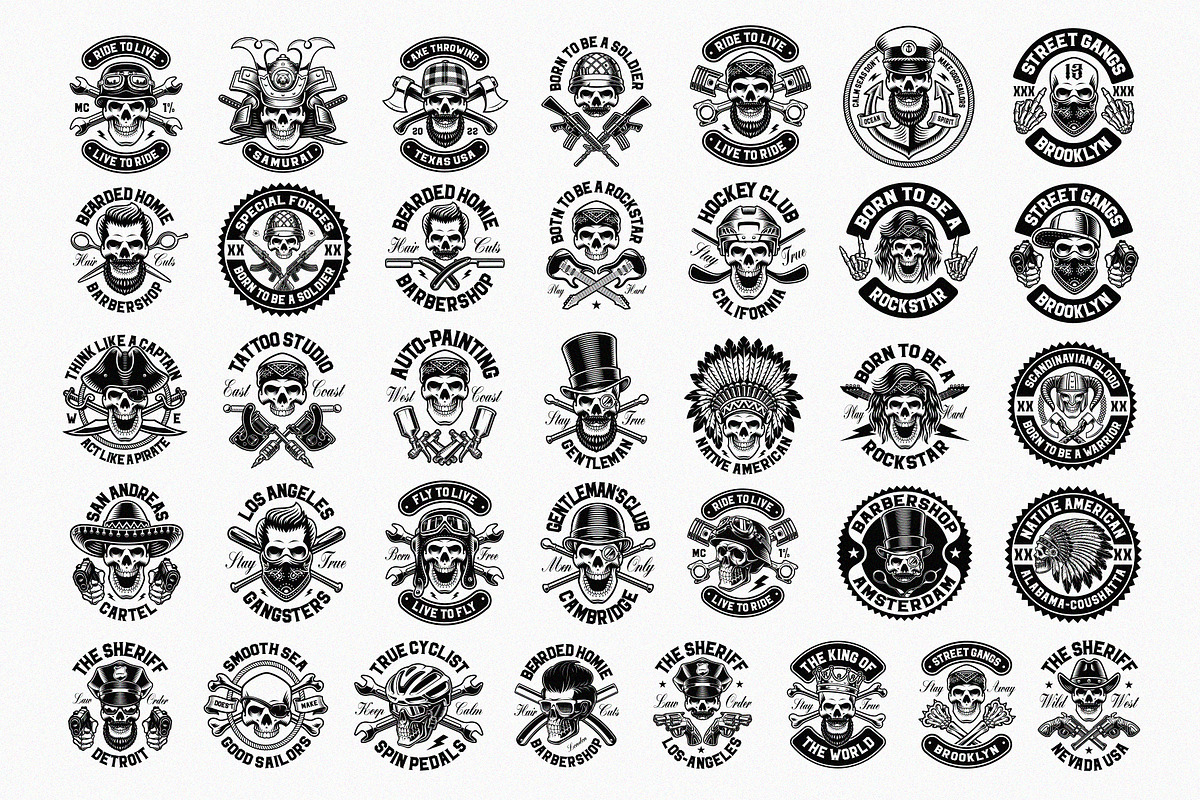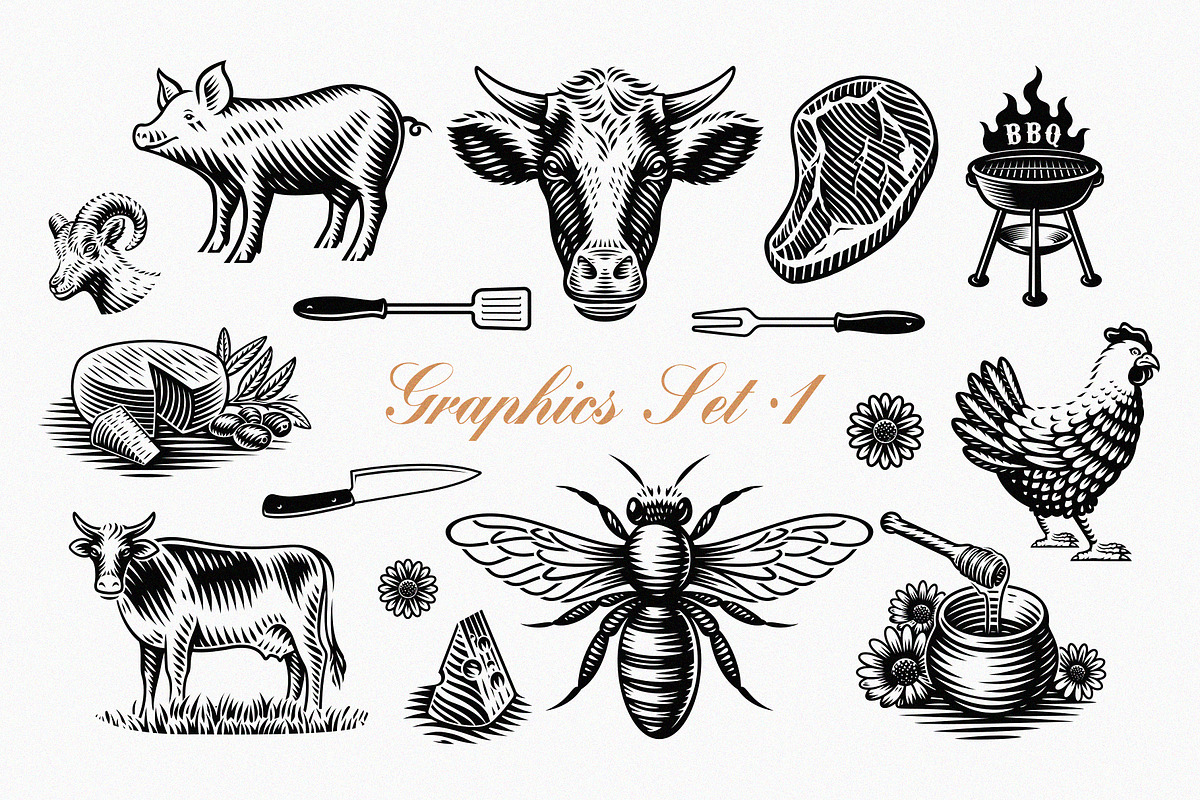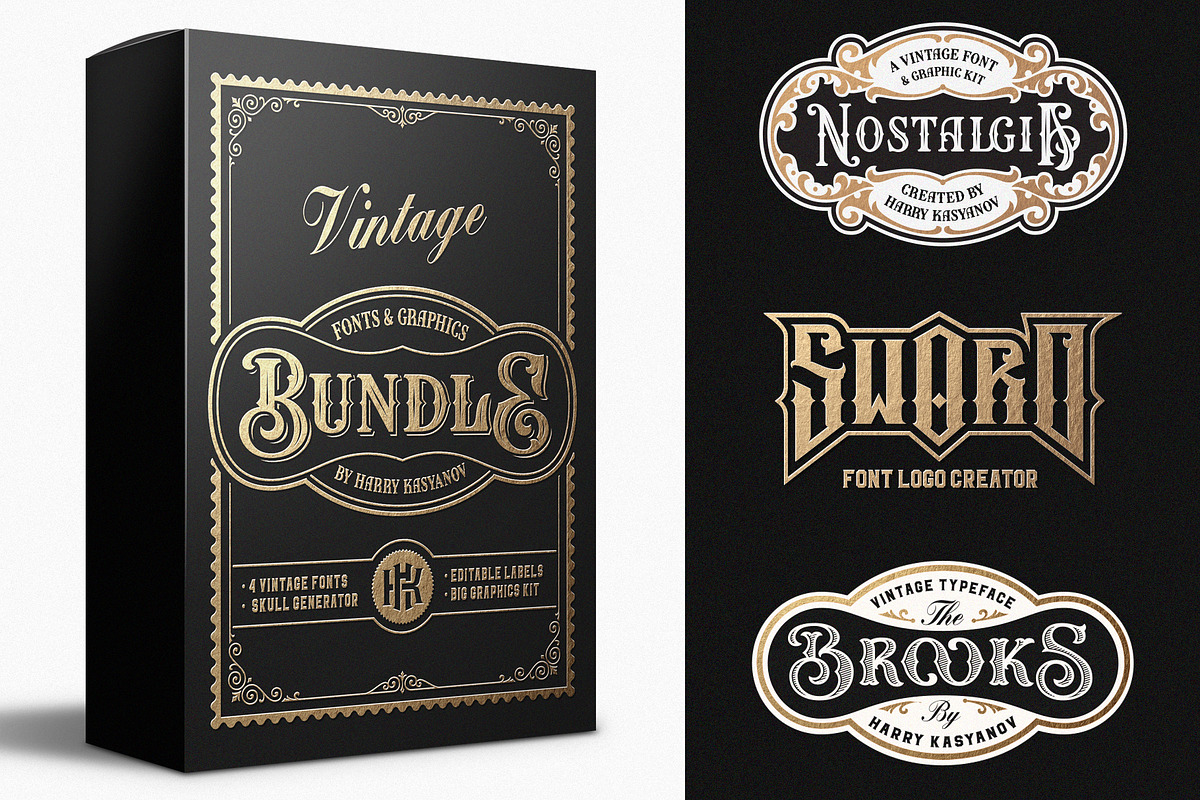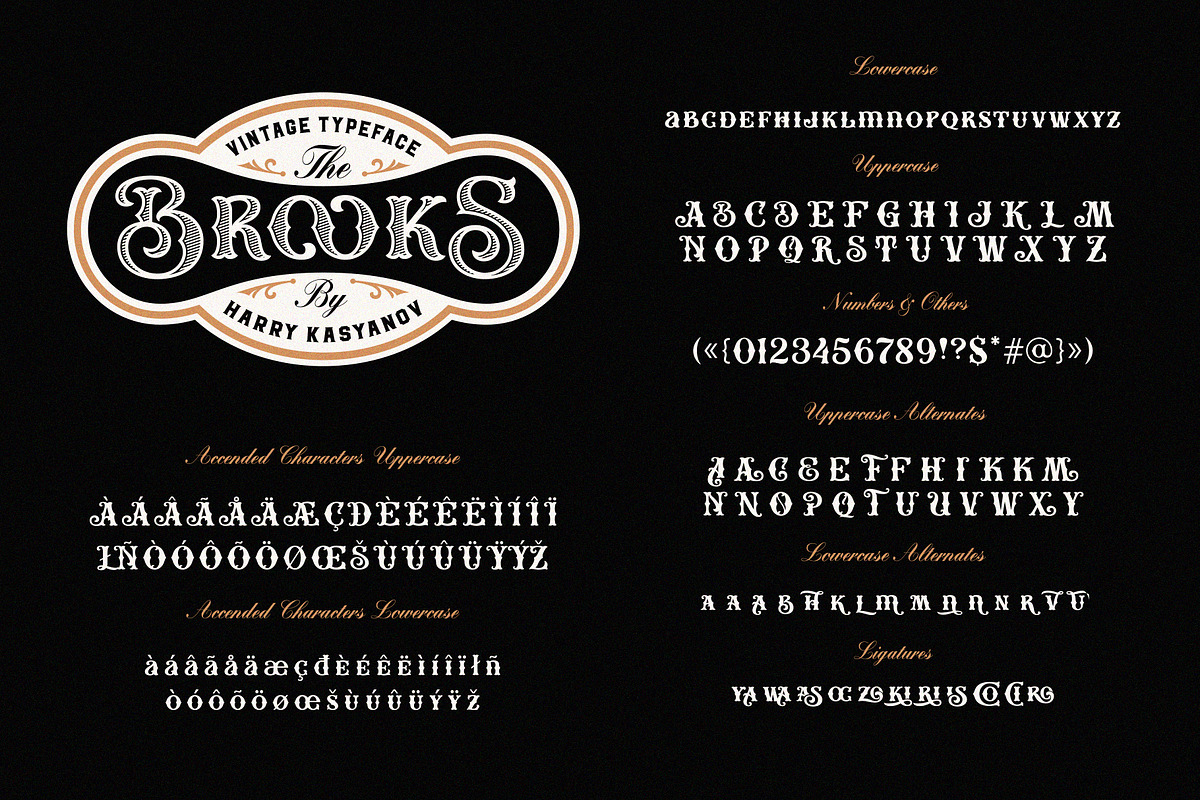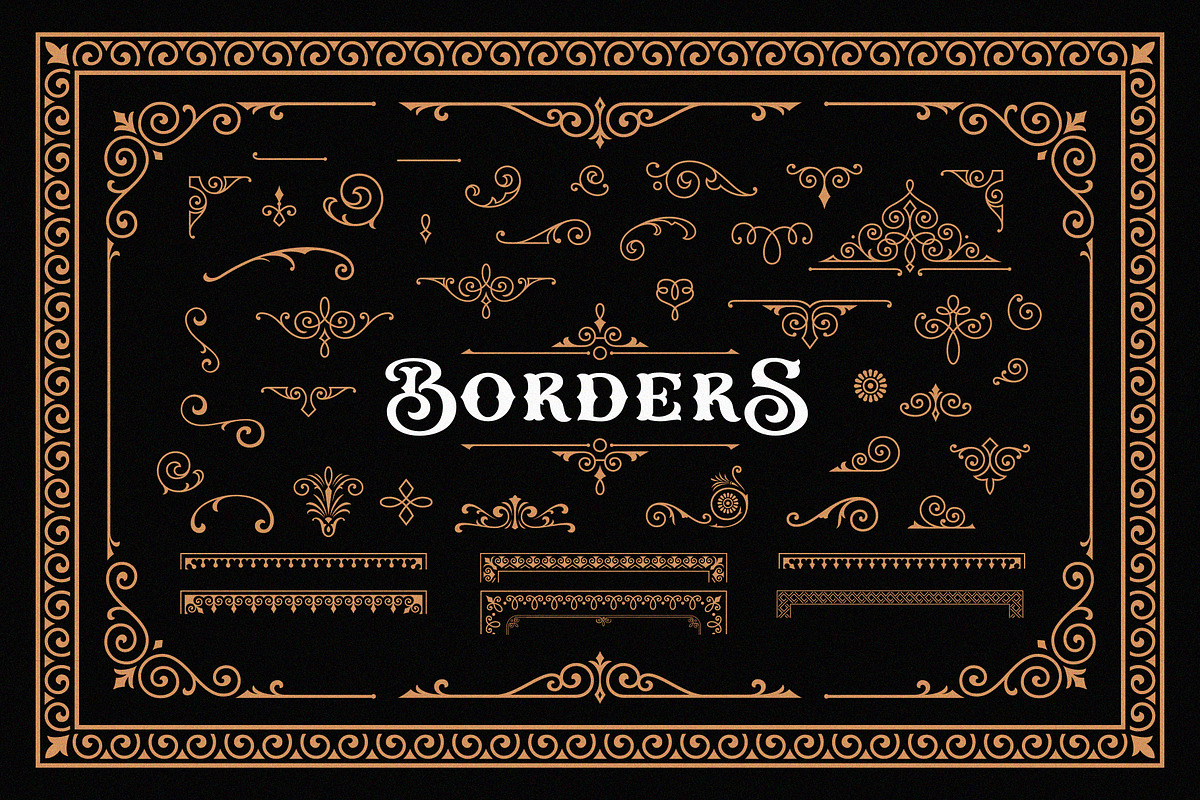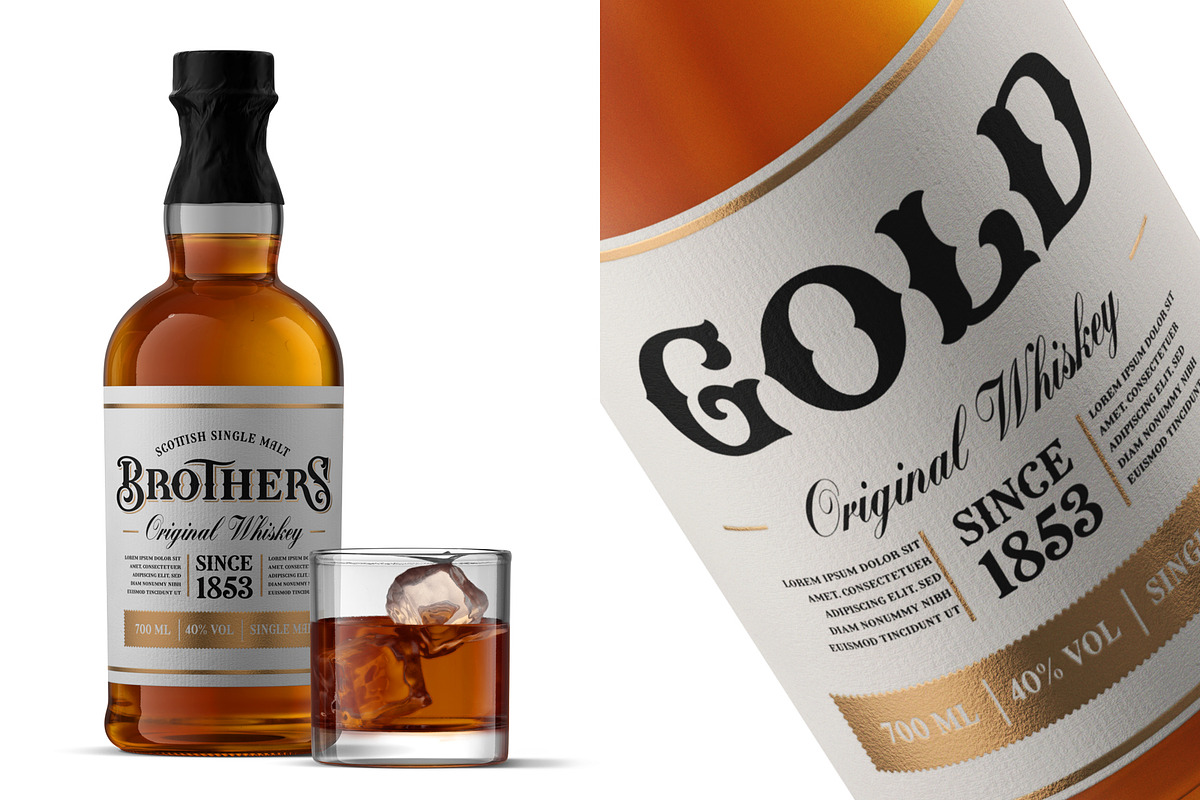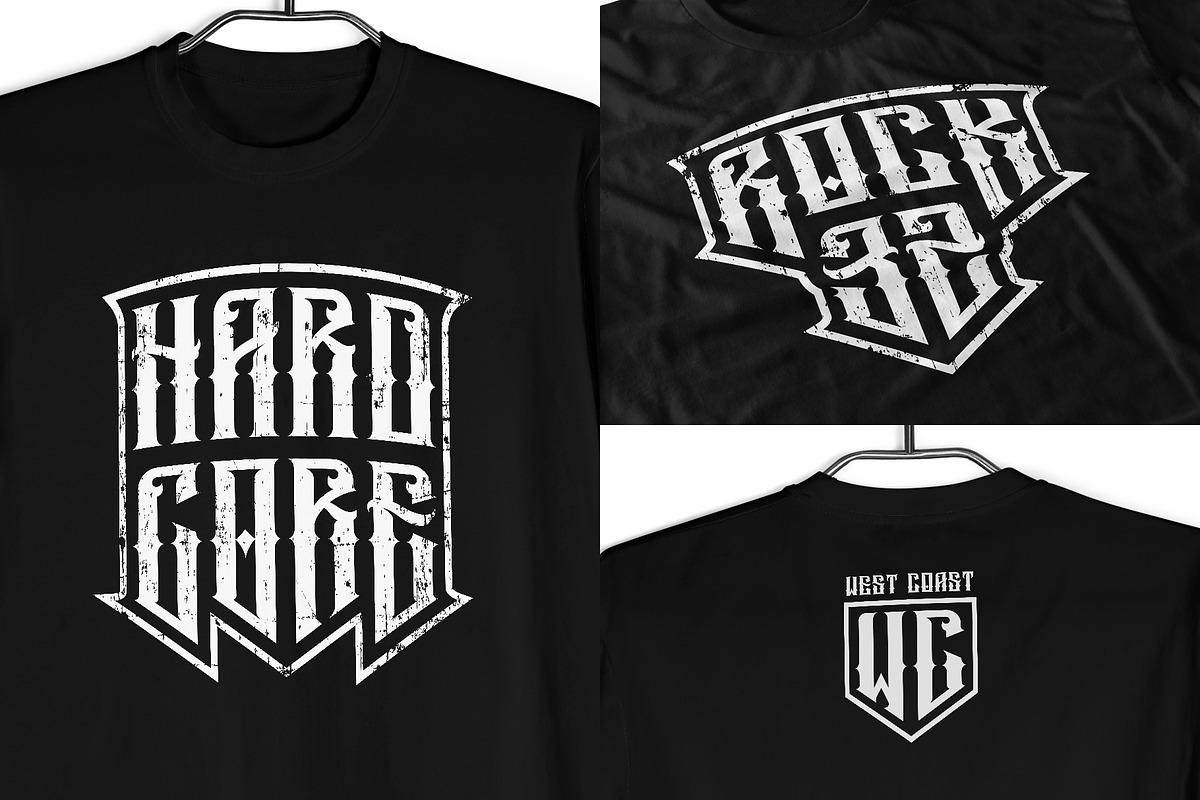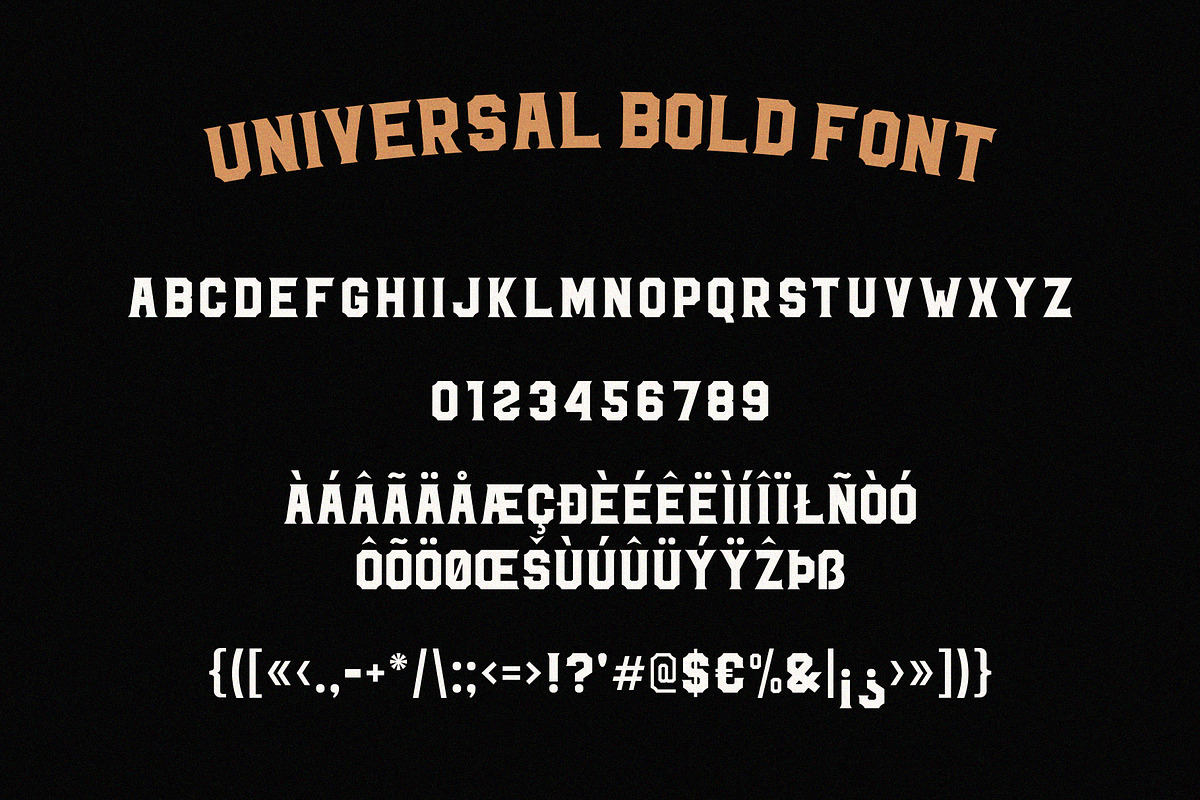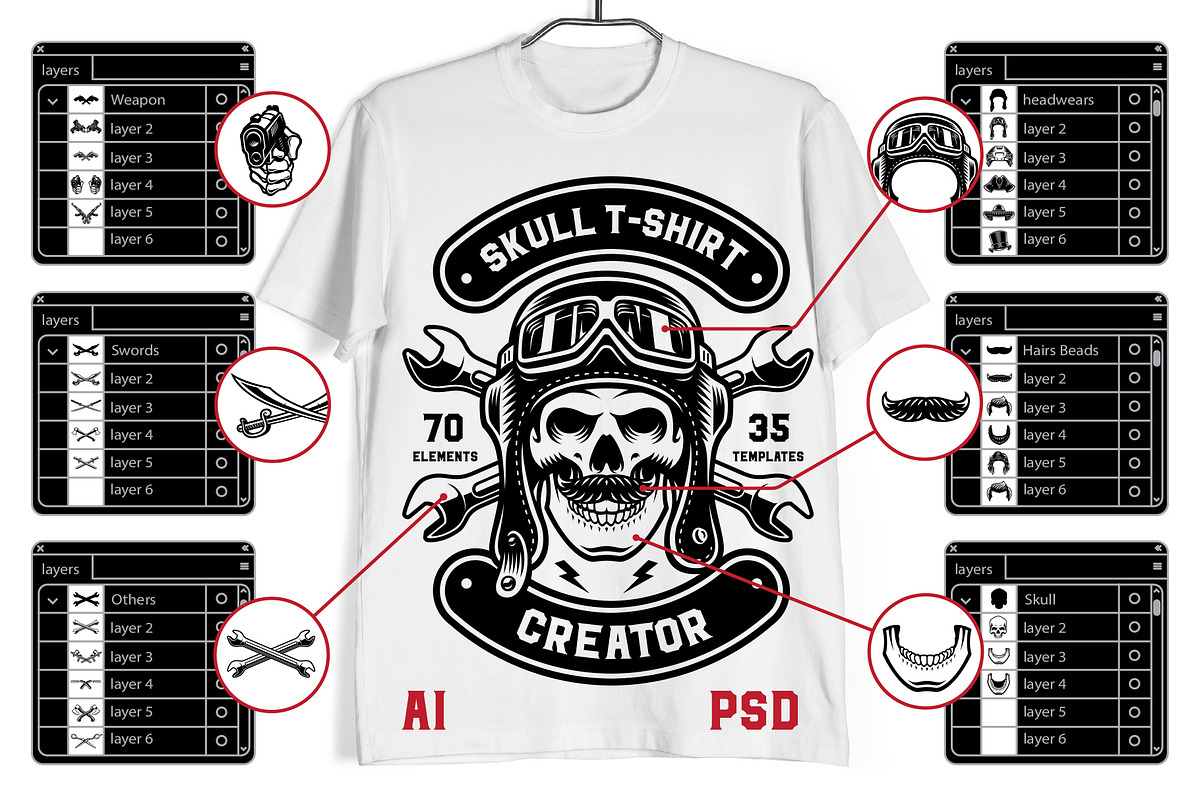
Vintage Fonts & Graphics Bundle
Big Bundle of Vintage fonts and Graphics Kit
This bundle can help you to create a bunch of stuff; logos, Alcohol labels, packages, t-shirt prints and so much more